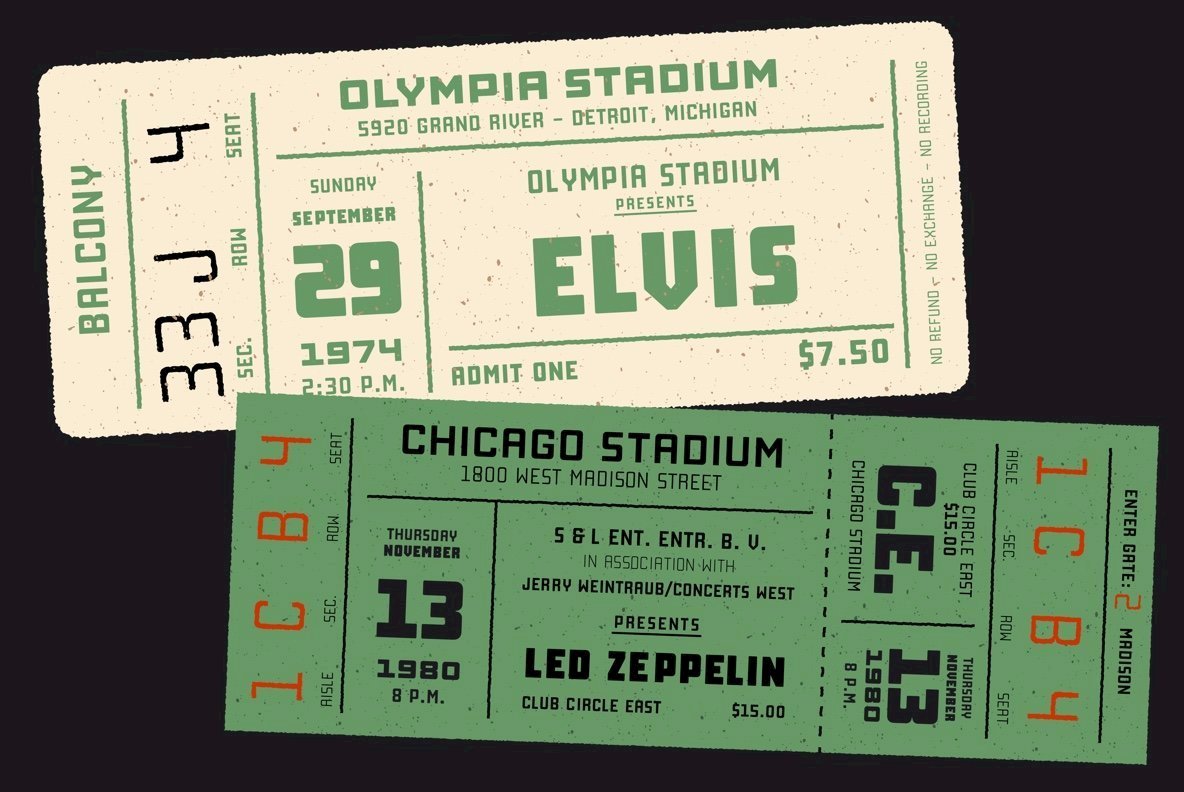
Manufaktur Font
The MANUFAKTUR with family consists of 60 fonts:
- 5 weights - (Light, Medium, Bold, Extra Bold & Black)
- 3 widths - (Normal, Expanded & Ultra Expanded)
- 3 styles - (Normal, Italic, Rough)
With 670+ glyphs MANUFAKTUR supports basic, Western European, Central European and South Eastern European languages.
- The original underlined lowercase characters have moved into stylistic alternates.